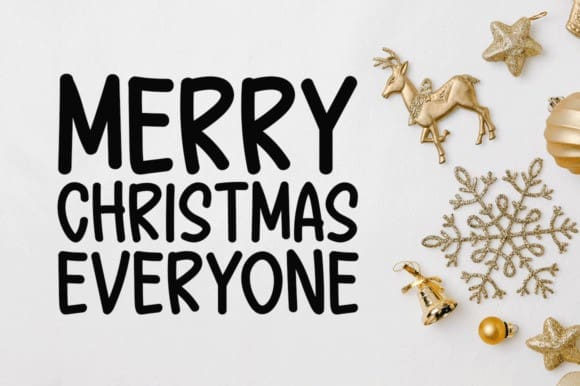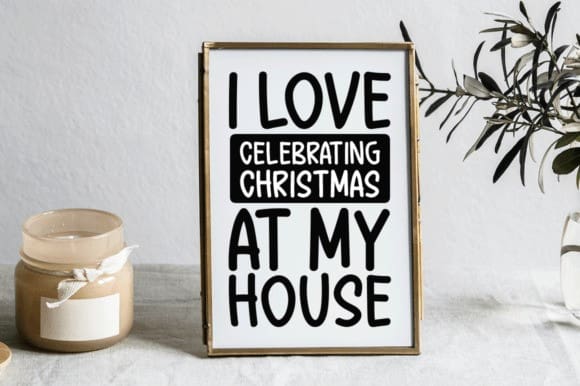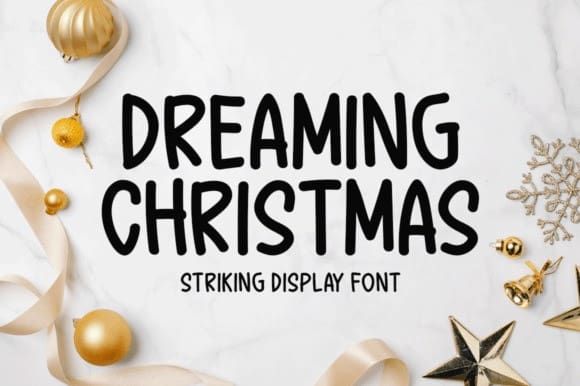
Dreaming Christmas Font
Dreaming Christmas Font is a simple-lettered display font. It can easily be matched to an incredibly large set of projects, so add it to your creative ideas and notice how it makes them stand out!